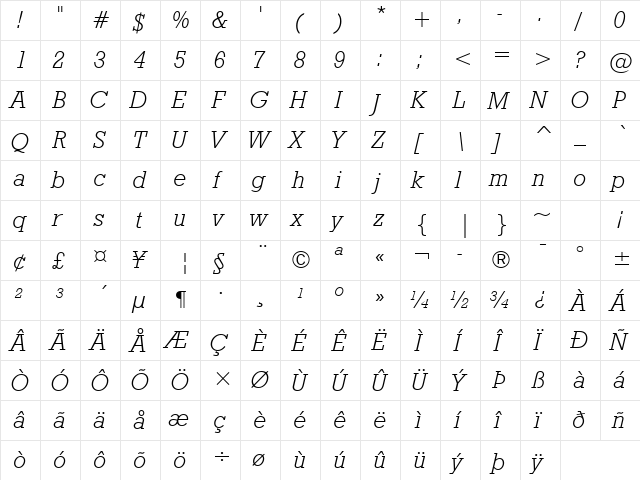
GeoSlb712 Lt BT Light Italic Font Preview
Design Context for GeoSlb712 Lt BT Typeface
GeoSlb712 Lt BT is a composed and adaptable typeface that performs quietly and consistently across a wide range of design contexts. Its italic angle brings a sense of urgency and motion to the letterforms. Its slender proportions lend an understated elegance to any composition.
Pro Tip: Try GeoSlb712 Lt BT for annotation and caption copy alongside an upright companion — the contrast in angle creates a dynamic but ordered typographic system.